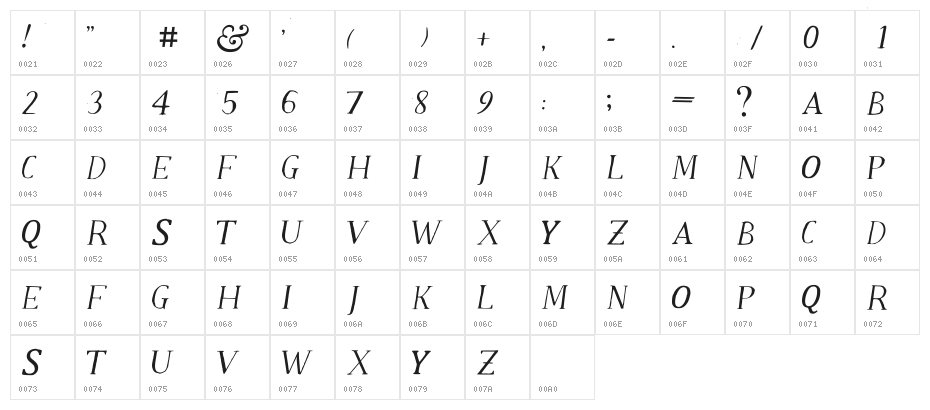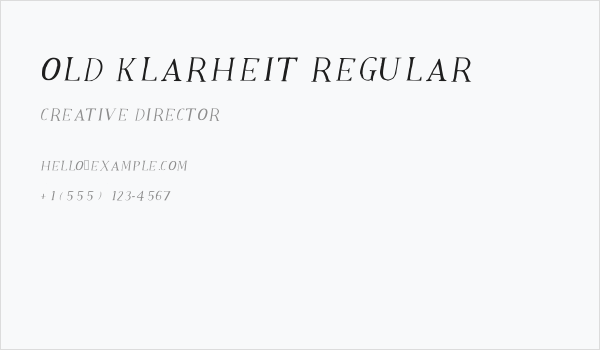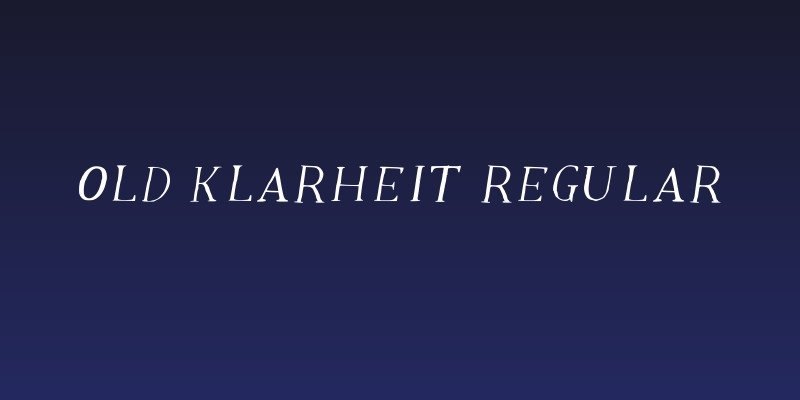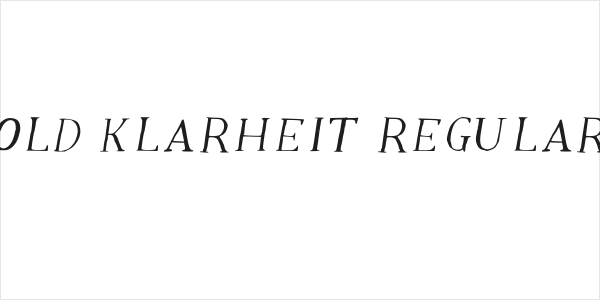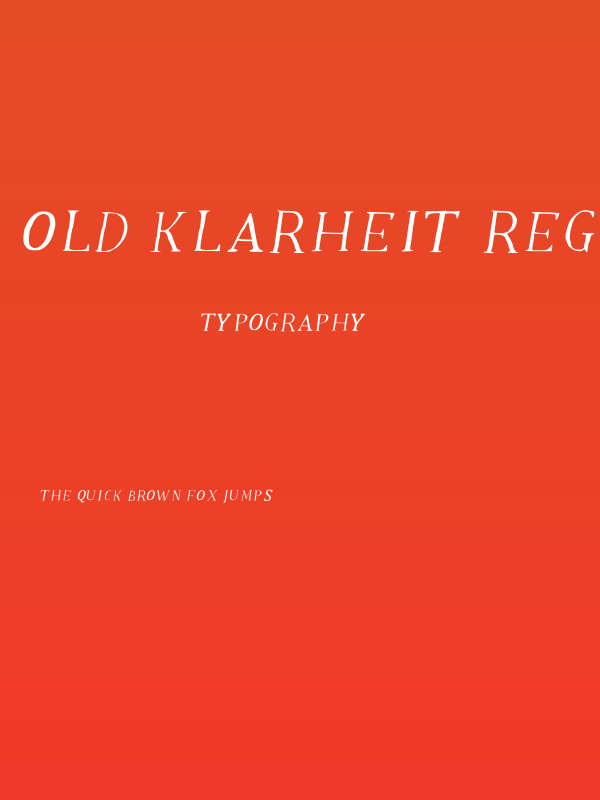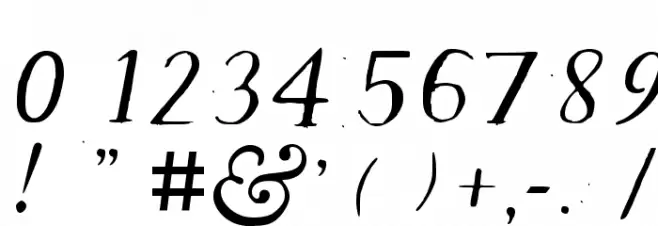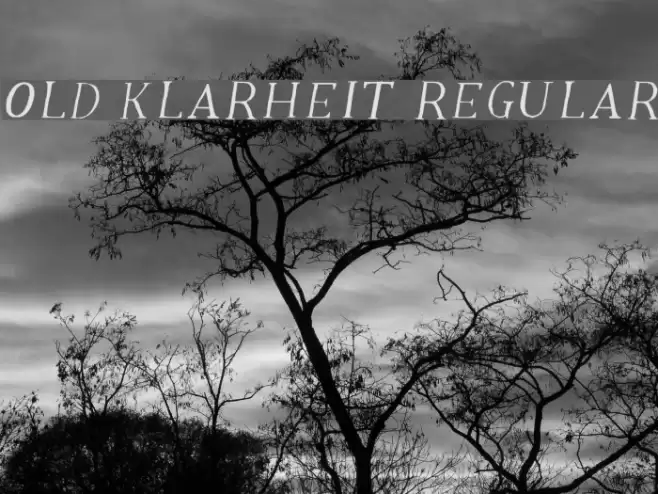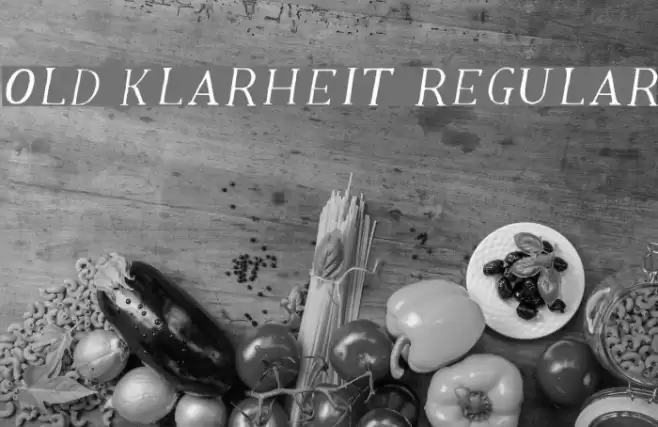
Old Klarheit Regular Font
Old Klarheit Regular Description
This typeface features a classic serif design with a slightly modern twist. The characters exhibit a subtle elegance, characterized by thin, elongated strokes and sharp serifs. The uppercase letters are particularly striking, with a refined balance between thick and thin lines, giving them a sophisticated appearance. The lowercase letters maintain this elegance, with a consistent stroke width that enhances readability. The numerals are distinct and clear, with a traditional style that complements the overall aesthetic. Special characters are well-integrated, maintaining the font's cohesive look. This font is ideal for projects that require a touch of class and sophistication.
| Categories | Serif |
| Overall Style | Classic |
| Use Case | Headlines, Body text, Logos |
| Proposed Projects | Ideal for editorial design, book covers, formal invitations, and branding projects that require a sophisticated touch. |